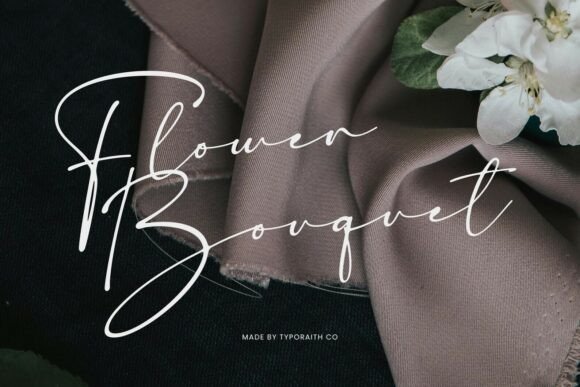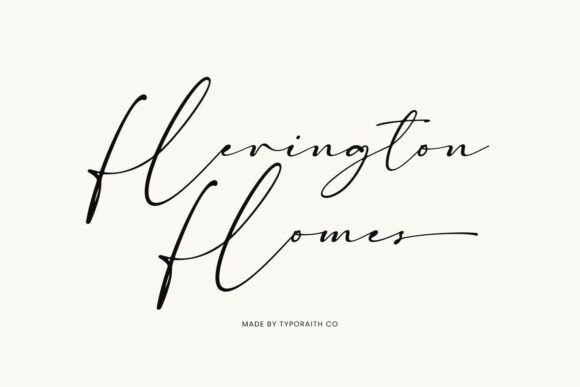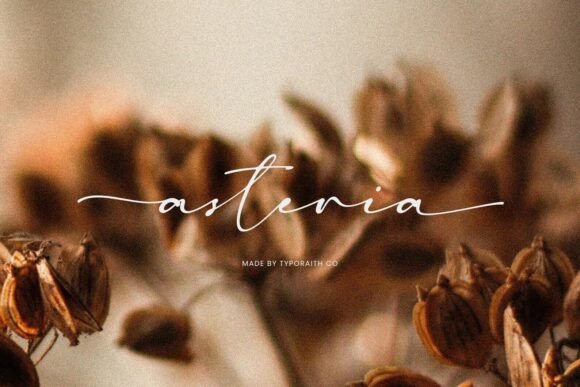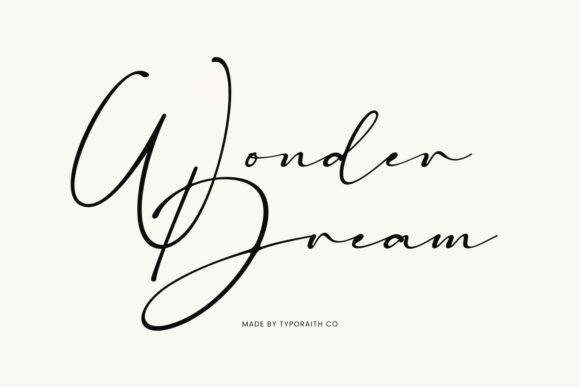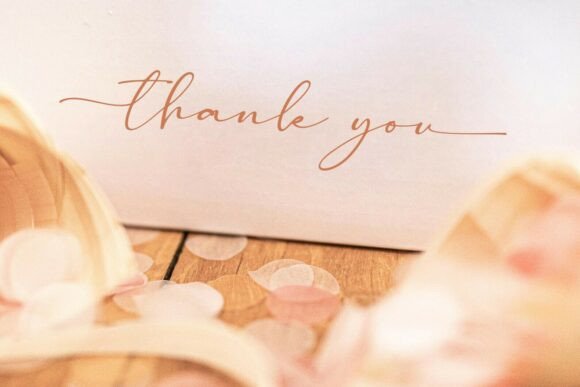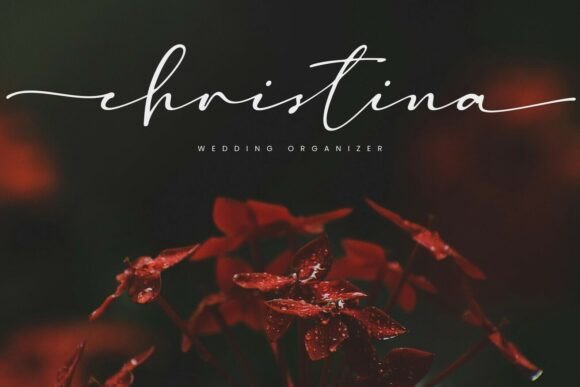
Introduction to Madelisse Font
Have you ever found yourself staring at a blank page, struggling to bring your creative vision to life? It’s a familiar feeling for many designers. But what if you had the perfect tool to elevate your work and make it truly stand out? Enter the Madelisse Font, a stunning signature script font that exudes elegance and sophistication.
With its perfect balance of classic calligraphy and modern minimalism, the Madelisse Font is a design resource that’s hard to resist. Whether you’re working on a high-end branding project or a personal creative endeavor, this font is sure to deliver a polished, handwritten touch that’s simply timeless. Plus, with its high-quality design and transparent background, you can easily incorporate it into your work without worrying about distractions.
Key Features of Madelisse Font
- High-quality font with a transparent background, perfect for designers who need a versatile design resource.
- Font size: 256 glyphs, allowing for a wide range of characters and symbols to be used in your design.
- Resolution: Optimized for high-resolution displays, making it perfect for use in digital design projects.
- Unique characteristics: Madelisse Font features a unique blend of modern and vintage elements, making it perfect for designers who want to add a touch of elegance to their creative project.
- Easy to use and customize, with a range of font styles and weights to choose from, making it an ideal design resource for professionals and hobbyists alike.
Honest Review: Madelisse Font
As a designer, I’m always on the lookout for high-quality design resources to elevate my creative projects. Recently, I had the chance to try out the Madelisse Font, and I’m excited to share my thoughts with you.
What works well: ✨ The Madelisse Font is incredibly versatile, making it perfect for a wide range of creative projects. The font is available for free download, which is a huge plus for designers on a budget. I also appreciate the transparent background option, which allows for seamless integration into any design.
What could be improved: ⚠️ One limitation of the Madelisse Font is its limited character set. While it’s perfect for headlines and titles, it may not be suitable for larger blocks of text. Additionally, the font could benefit from more weight options to provide greater flexibility.
Overall impression: The Madelisse Font is a solid addition to any designer’s toolkit. Its high-quality design and transparent background make it an excellent choice for creative projects. While it may have some limitations, I believe it’s well worth the free download.
- Incredibly versatile
Madelisse Font
Tips for Getting the Most Out of Madelisse Font
Some tips for getting the most out of Madelisse Font include using it in combination with other design elements, experimenting with different font sizes and styles, and using it in creative projects where you need a high-quality design resource.
The Madelisse Font is commonly used in creative projects such as logos, brochures, and business cards. It is also used in web design, social media graphics, and other digital media.